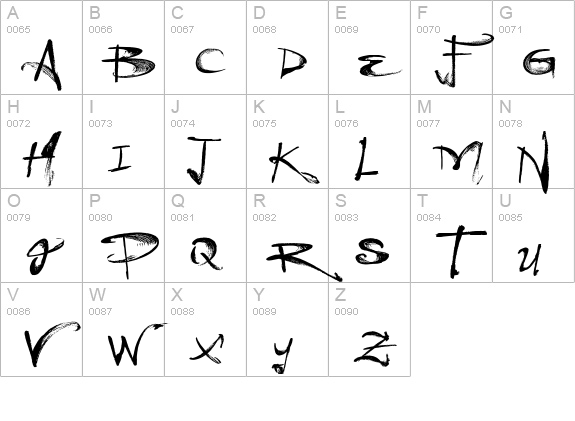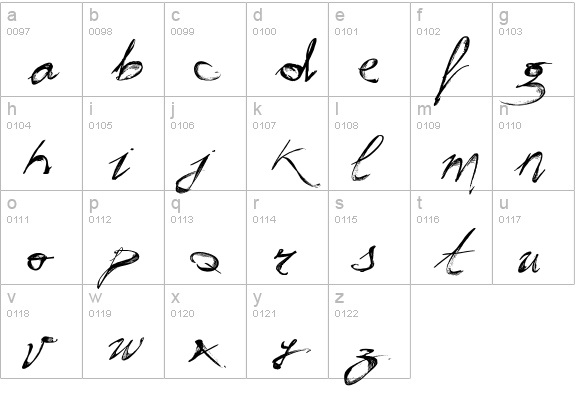
Vtks Hunt font is a unique and captivating typeface that will add a touch of adventure and excitement to your designs. With its bold and dynamic letterforms, this font is perfect for projects that require a strong and powerful visual impact. Inspired by the thrill of the hunt, Vtks Hunt font captures the essence of the chase and the adrenaline rush that comes with it. Its sharp angles and sleek curves embody the speed and precision needed in any pursuit. Whether you're designing a logo for a sports team, creating a poster for an action-packed event, or crafting a captivating headline, Vtks Hunt font will deliver a powerful and unforgettable message. One of the best things about Vtks Hunt font is that it is free! Yes, you read that right. This incredible font is freely available to download at FontsMarket.com. Now you can elevate your designs without breaking the bank. So why wait? Download Vtks Hunt font today and embark on a thrilling design journey that will leave a lasting impression.